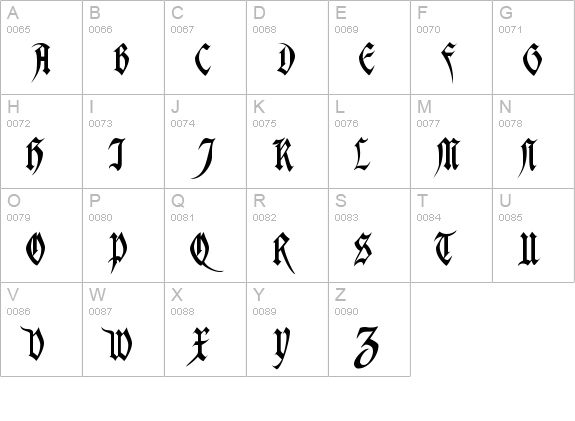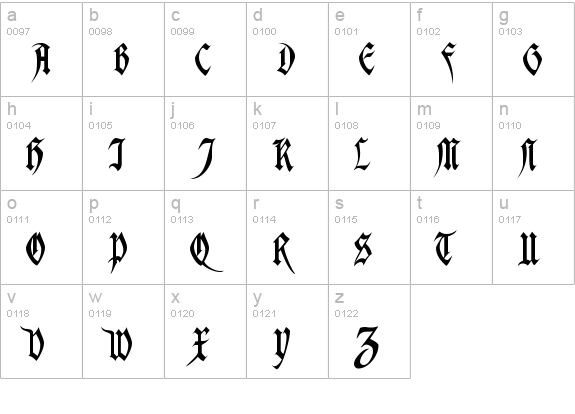
WadellCaps Font Details
Introducing WadellCaps, a captivating font that effortlessly combines elegance and versatility. This timeless typeface is perfect for adding a touch of sophistication to any project, whether it's a logo, branding, packaging, or any creative endeavor that requires a touch of distinction. WadellCaps features beautifully crafted uppercase letters, meticulously designed to exude a sense of class and refinement. Each character showcases a unique combination of curves and straight lines, resulting in an aesthetic that is both bold and graceful. The overall design of WadellCaps effortlessly captures attention and leaves a lasting impression. One of the greatest advantages of WadellCaps is that it is freely available to download at FontsMarket.com. This means that you can enhance your creative projects without any additional cost, making it an ideal choice for both personal and commercial use. With this font, you can elevate your designs to new heights, while keeping your budget intact. The versatility of WadellCaps knows no bounds. Its clean and well-defined lines make it suitable for a wide range of applications, from luxurious branding projects to elegant invitations and everything in between. Whether you're designing for print or digital media, WadellCaps will effortlessly adapt to your needs, ensuring a seamless integration into your creative vision. The attention to detail in WadellCaps is truly remarkable. Each letter has been meticulously crafted to ensure a harmonious balance between readability and aesthetics. The result is a font that is not only visually pleasing but also easy to read, making it a reliable choice for various design projects. In conclusion, WadellCaps is a free font that offers unparalleled elegance and versatility. With its timeless design and broad range of applications, it is sure to become a staple in any designer's toolkit. Download WadellCaps today from FontsMarket.com and unlock a world of possibilities for your creative projects.